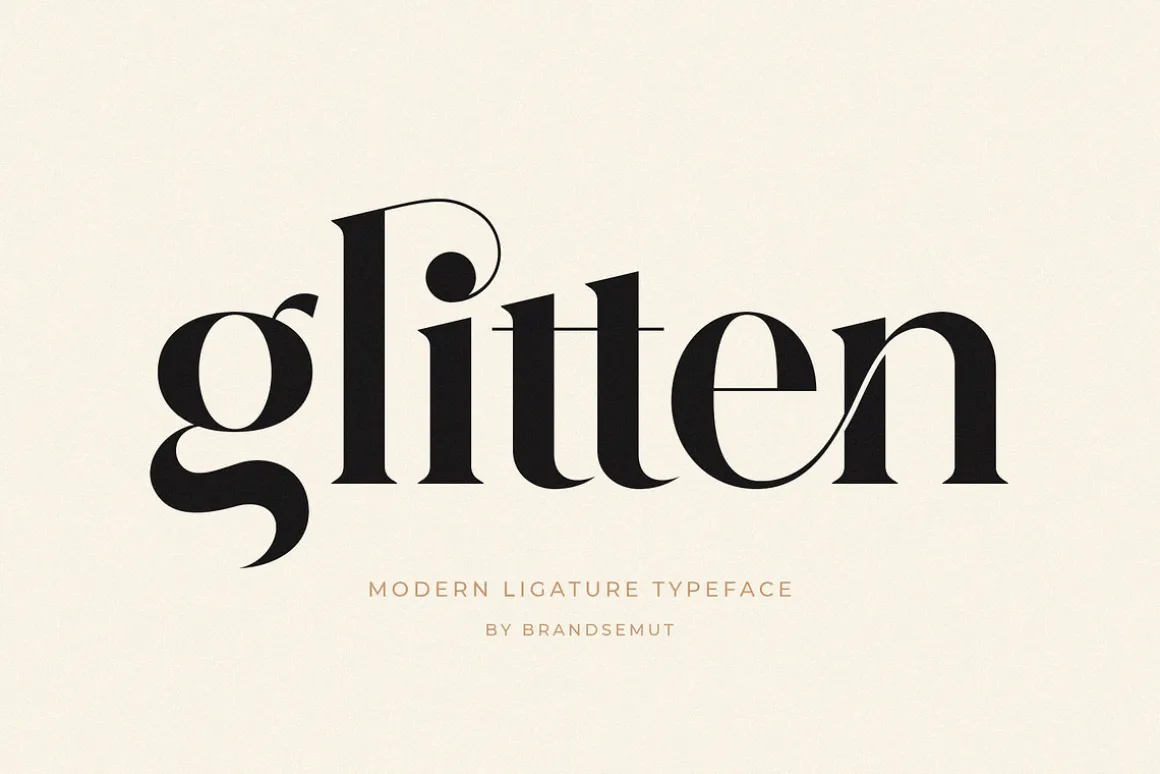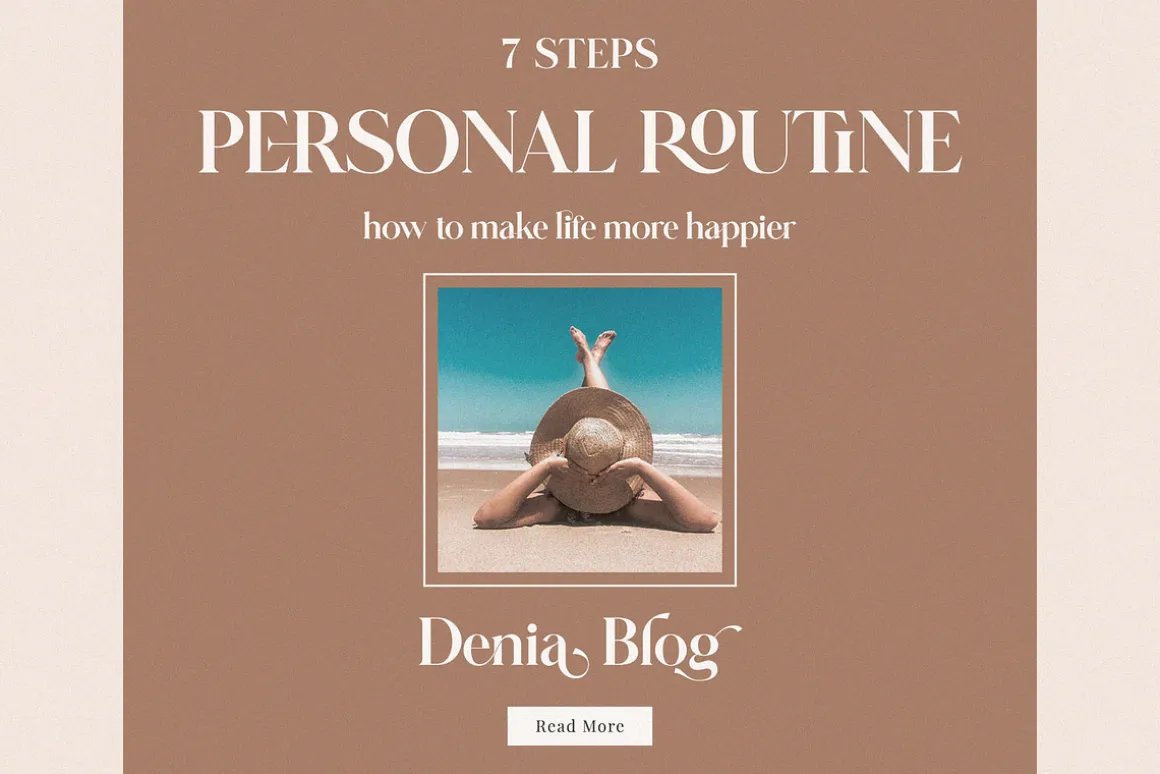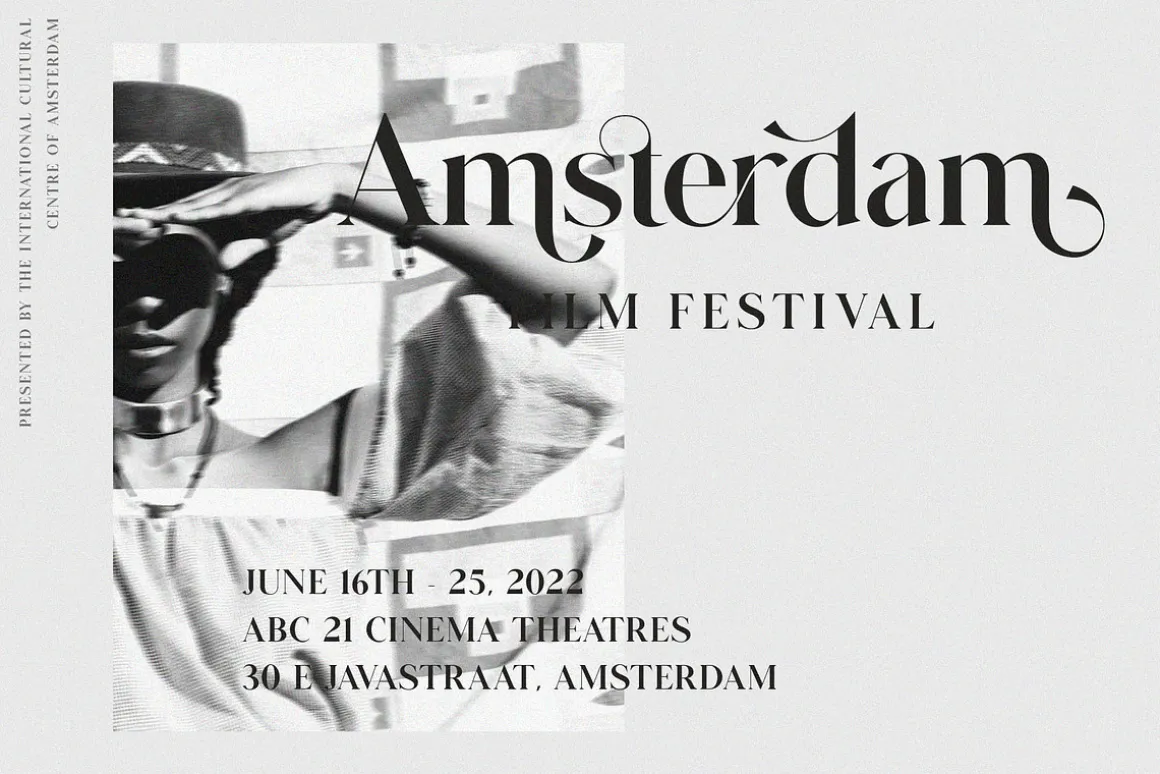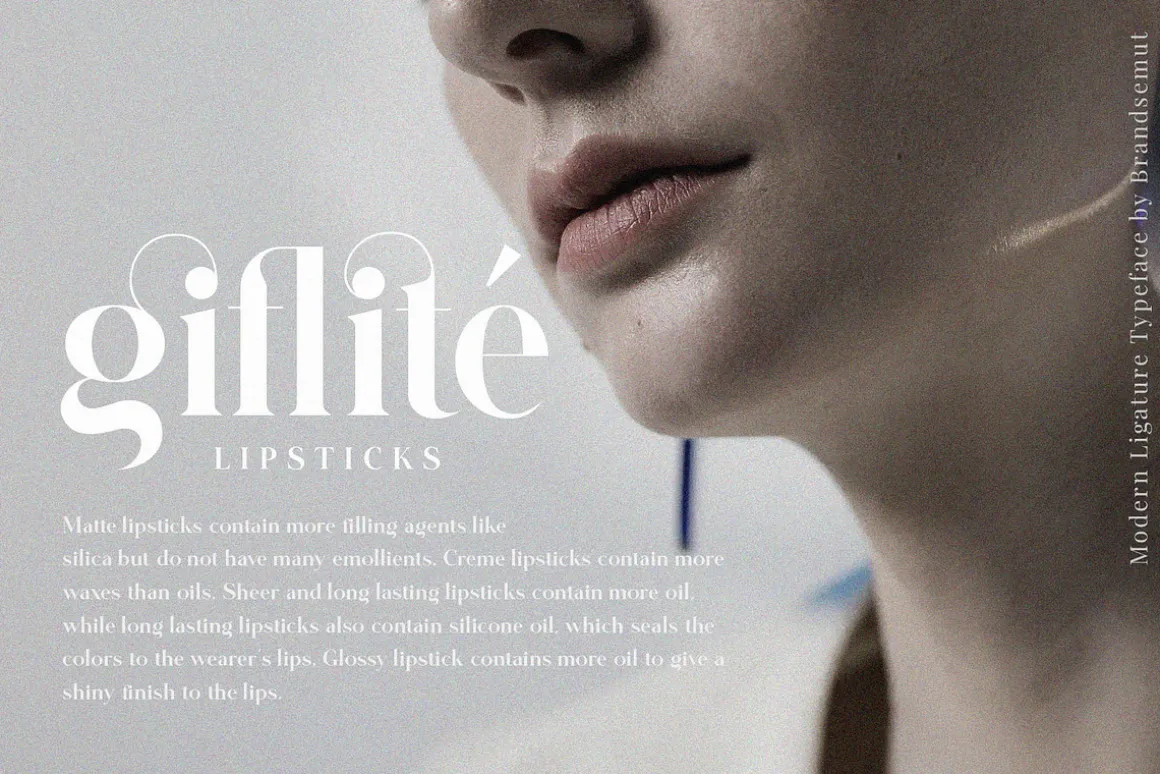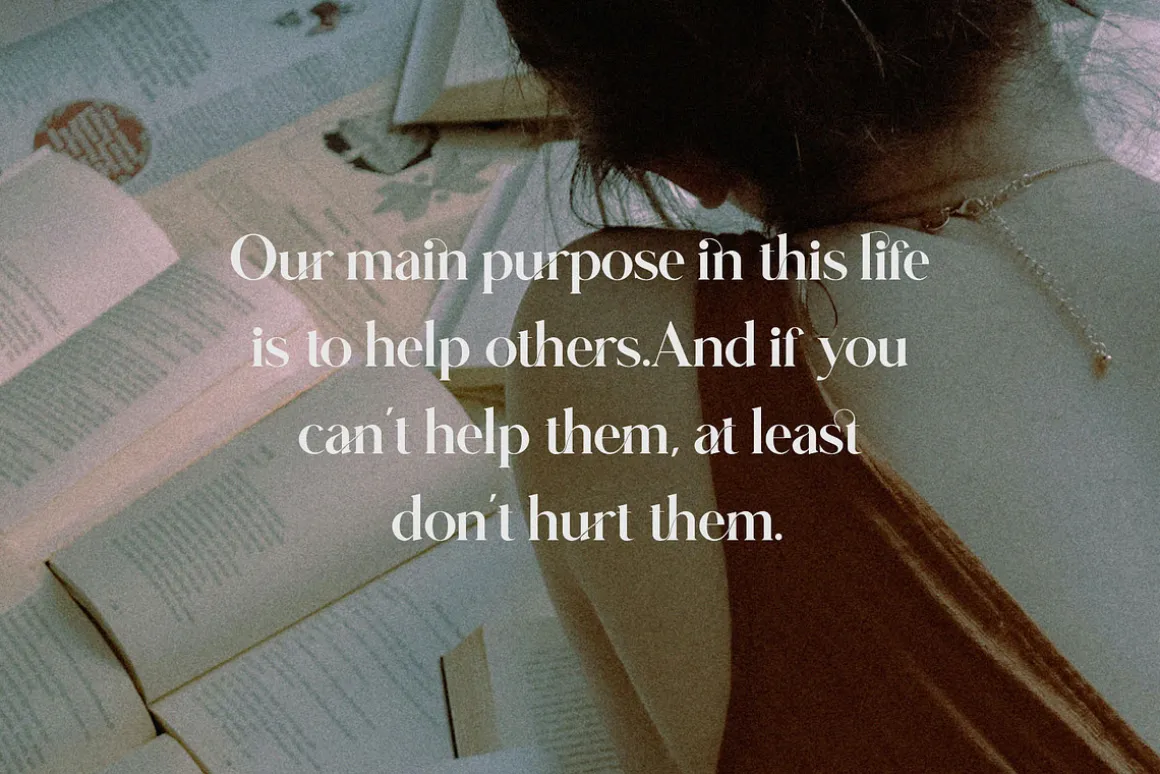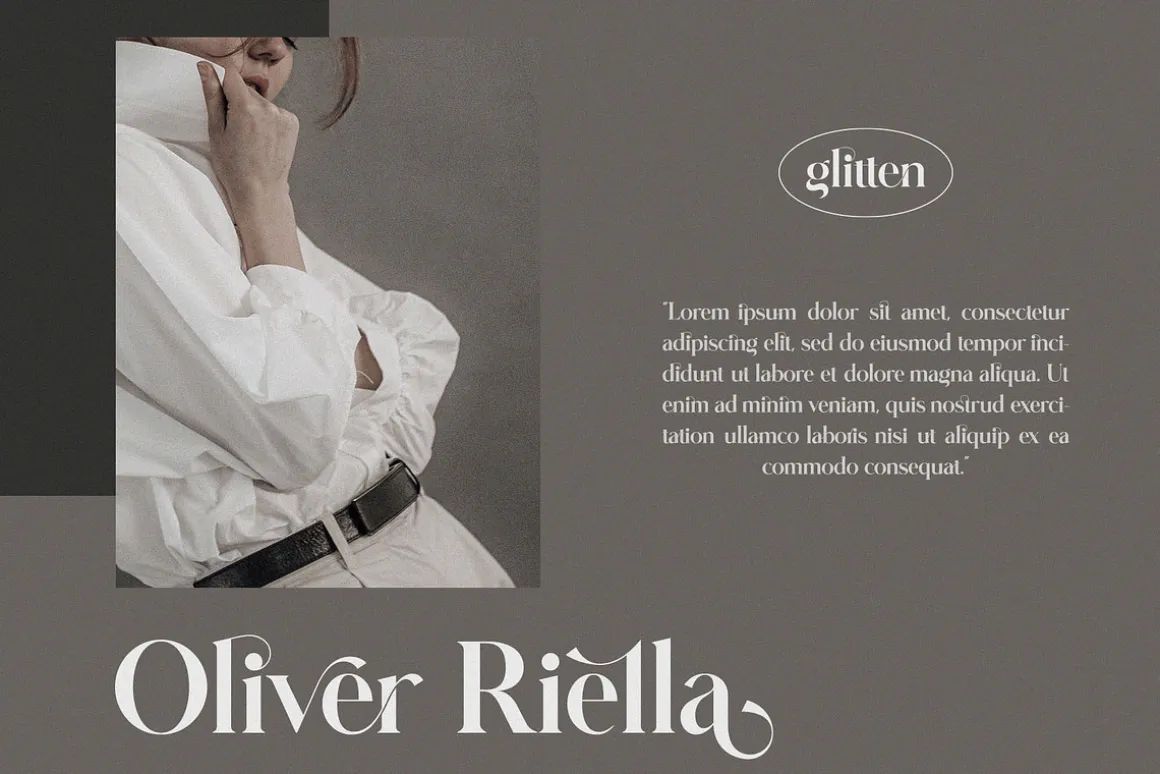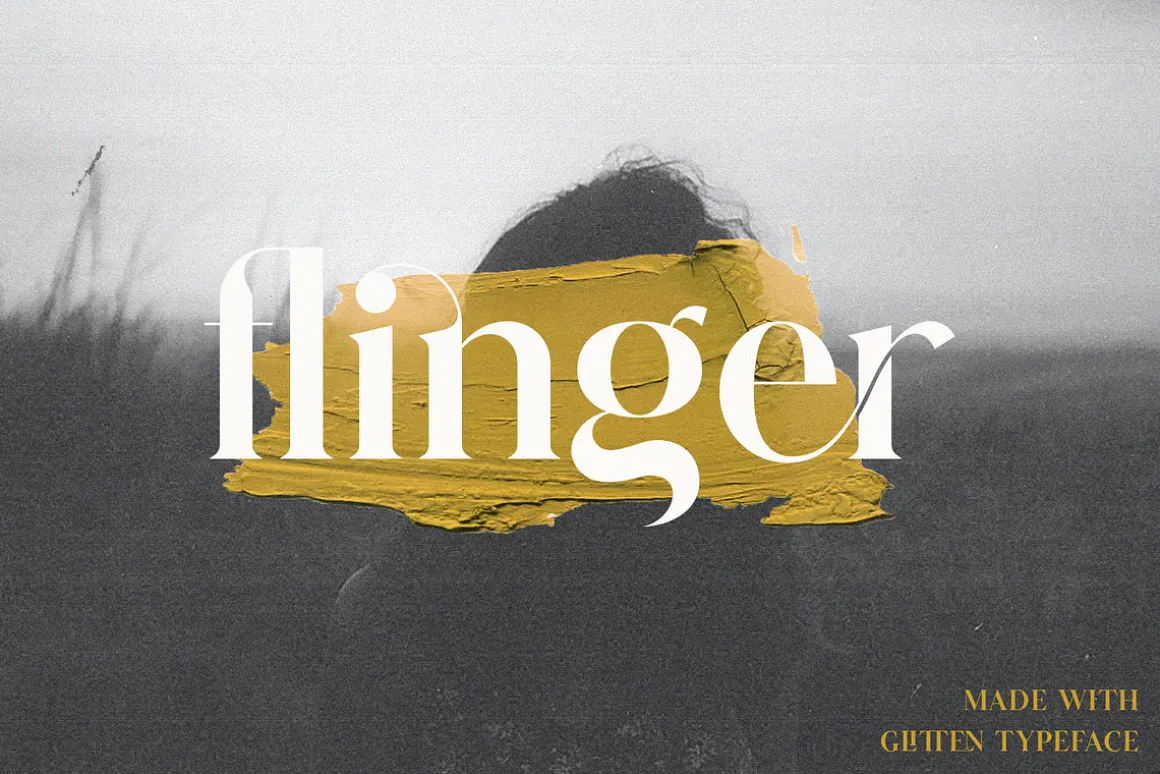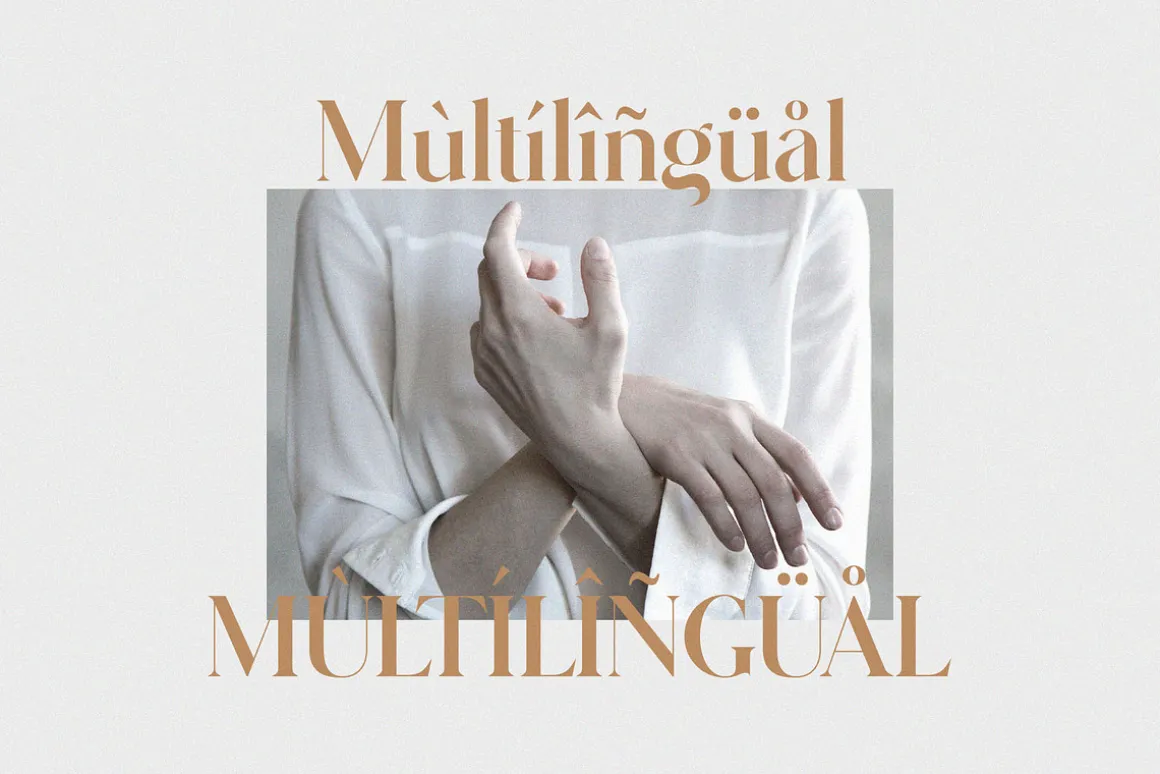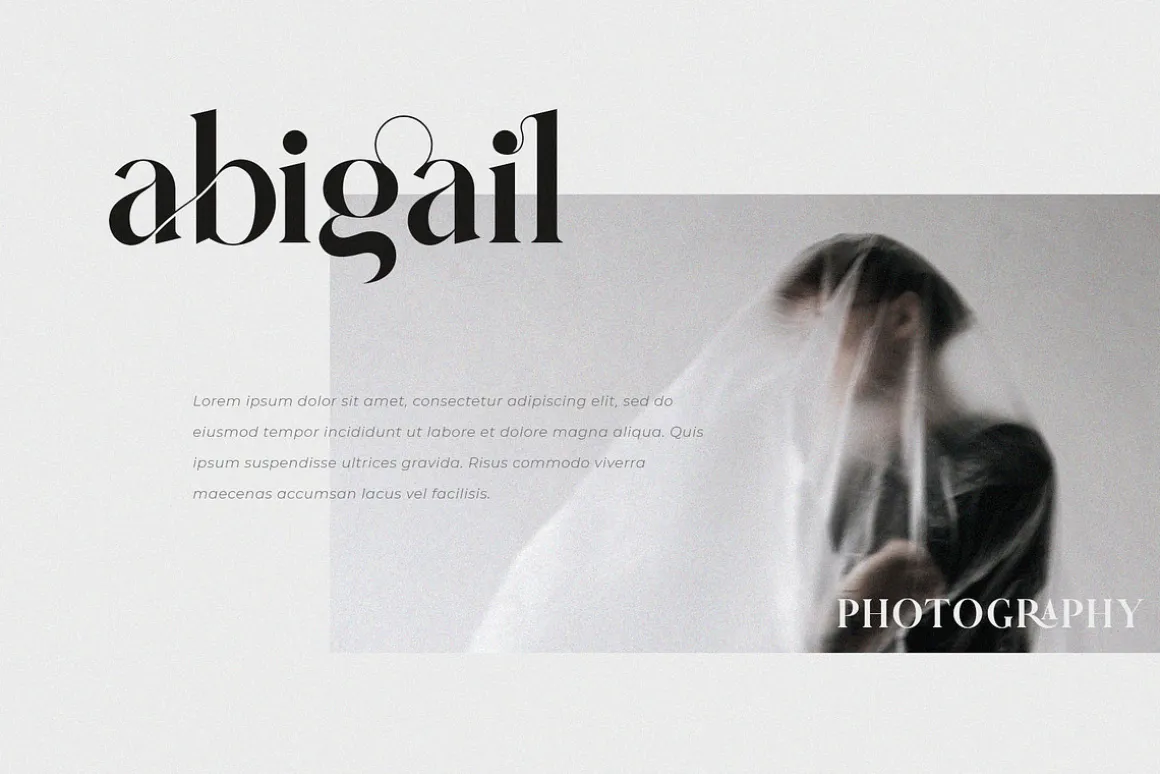
Introducing the new Glitten Modern Ligature Serif!!! Glitten is a modern, elegant and classy serif typeface, best used as a display for headings, logos, branding, magazines, product packaging and invitations.Glitten come with clean lines and smooth curves give any project an extra touch of class.
Glitten was built with OpenType features and includes 103 ligatures, alternate, numbers, punctuation, and it also supports other languages.